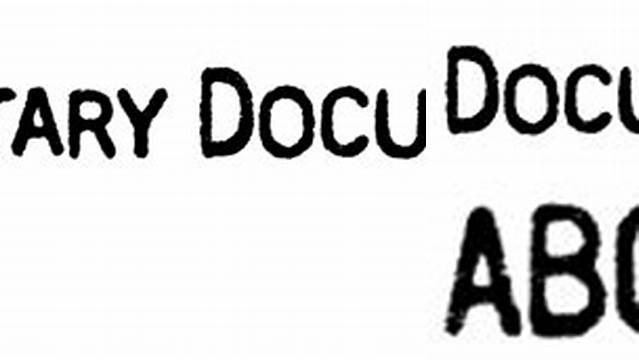
Military Document AOE Font: Free Download & Styles Guide
Hey guys! Are you looking for the perfect font to give your documents that authentic military feel? Or maybe you're just a font enthusiast with a penchant for the tactical aesthetic? Whatever your reason, finding the right military document AOE font can be a game-changer. In this comprehensive guide, we'll dive deep into the world of military-style fonts, exploring everything from what makes them unique to where you can download them for free. We'll also cover some tips and tricks for using these fonts effectively, ensuring your projects hit the mark every time. So, buckle up and get ready for a font-tastic adventure!
Let's start with the basics. What exactly is a military document AOE font? Well, the term "AOE" might be a bit of a mystery, but in the font world, it generally refers to a specific style that evokes the feeling of official military correspondence, technical manuals, and classified documents. These fonts often feature characteristics like bold, blocky lettering, a monospaced design (where each character takes up the same amount of horizontal space), and a generally utilitarian appearance. Think of the fonts you've seen in war movies, government memos, or even old-school video games – that's the kind of vibe we're talking about. The core idea behind a military-style font is readability and clarity, especially in situations where information needs to be conveyed quickly and accurately. This is why they often prioritize function over fancy aesthetics, although that doesn't mean they can't look cool too! When you're choosing a font for a military document, think about the message you want to send. Are you aiming for a sense of authority and precision? Or perhaps a more gritty, historical feel? There's a font out there for every scenario, and understanding the nuances of different styles is key to making the right choice. You'll find that many of these fonts draw inspiration from classic typewriters and stencils, giving them a timeless and authoritative feel. Common characteristics include: heavy serifs or sans-serif designs, consistent stroke widths, and a lack of decorative flourishes. These elements work together to create a sense of formality and directness, making them ideal for official-looking documents, posters, and even website designs that aim to convey a sense of strength and reliability. Beyond the technical aspects, a military document AOE font can also add a layer of visual interest to your projects. They can be used to create a sense of urgency, importance, or even nostalgia, depending on the context. For example, a vintage military font might be perfect for a historical fiction book cover, while a more modern, streamlined design could work well for a tech-themed website or app. Ultimately, the best way to understand the power of these fonts is to see them in action. Experiment with different styles, try them out in various projects, and discover how they can transform the look and feel of your work.
Okay, so we've established what a military document AOE font is, but what are the specific characteristics that define this style? Let's break it down. First and foremost, readability is paramount. Military fonts are designed to be easily legible, even in less-than-ideal conditions. This means they typically have a clear and simple design, with well-defined letterforms and ample spacing. You won't find any overly ornate or decorative elements here – the focus is on getting the message across quickly and efficiently. Another key characteristic is boldness. Military fonts often feature thick, heavy strokes that command attention. This is partly for practical reasons – bold fonts are easier to read at a distance or on low-resolution screens – but it also contributes to the overall sense of authority and power. Think about the bold lettering you often see on army vehicles, signage, and official documents – that's the kind of visual impact we're aiming for. The monospaced design we mentioned earlier is another important factor. In a monospaced font, each letter and character takes up the same amount of horizontal space. This creates a uniform, almost mechanical look that's reminiscent of typewriters and early computer printouts. While it might not be the most aesthetically pleasing choice for all applications, it's a classic feature of military fonts that adds to their authentic feel. Monospaced fonts also have a practical advantage: they make it easier to align text and create tables or charts, which is why they're often used in technical documents and coding environments. Beyond these technical aspects, there are also some more subtle characteristics that contribute to the military aesthetic. Many military fonts have a slightly distressed or weathered appearance, as if they've been through the wringer. This can add a sense of history and authenticity, making the font feel like it's been lifted straight from an old war movie. Others have a more geometric or stencil-like design, which evokes the feeling of military hardware and equipment. The letterforms might be slightly angular or incomplete, as if they were cut out of metal or painted onto a crate. These details might seem small, but they can have a big impact on the overall impression a font creates. They're what give military fonts their unique personality and make them so effective at conveying a sense of strength, authority, and even a bit of danger. When you're choosing a military font, pay attention to these subtle cues and think about how they align with the message you want to send.
Now that you know where to find these fonts, let's talk about some of the most popular military font styles you're likely to encounter. Each style has its own unique character and is suitable for different applications, so understanding the nuances can help you make the best choice for your project. First up, we have the classic stencil font. Stencil fonts are characterized by their broken letterforms, which look as if they've been cut out of a stencil. This style is directly inspired by military equipment and signage, where stencils were often used to apply lettering to vehicles, crates, and other surfaces. Stencil fonts have a rugged, utilitarian look that's perfect for conveying a sense of strength and durability. They're often used in posters, logos, and branding materials for businesses that want to project a tough or industrial image. Next, we have the monospaced typewriter font. As we mentioned earlier, monospaced fonts have a uniform character width, creating a consistent, almost mechanical look. Typewriter fonts are particularly evocative of military documents, as typewriters were a common tool for official correspondence and paperwork in the armed forces. These fonts have a vintage, slightly retro feel that can add a touch of nostalgia to your designs. They're also incredibly legible, making them a good choice for documents, reports, and other text-heavy materials. Then there are the bold sans-serif fonts. Sans-serif fonts, which lack the small decorative strokes (serifs) found on some other font styles, are known for their clean, modern look. Bold sans-serif fonts are particularly effective at commanding attention and conveying a sense of authority. These fonts are often used in military signage, headings, and titles, where readability is paramount. They can also work well in website designs and other digital applications where a strong, clear message is essential. Another popular style is the slab-serif font. Slab-serif fonts have thick, blocky serifs that give them a bold and assertive appearance. These fonts have a slightly more vintage feel than sans-serif fonts, but they're still incredibly legible and impactful. Slab-serif fonts are often used in logos, posters, and other display applications where you want to make a statement. They can also work well for headlines and subheadings in longer documents. Finally, we have the more modern and futuristic military fonts. These fonts often incorporate geometric shapes, sharp angles, and other design elements that evoke the feeling of advanced technology and weaponry. They're a good choice for projects that want to convey a sense of innovation or cutting-edge design. These fonts might be less traditional than some of the other styles we've discussed, but they can still be incredibly effective at creating a military-inspired look. When choosing a military font style, it's important to consider the overall tone and message of your project. Think about the context in which the font will be used and the audience you're trying to reach. By understanding the characteristics of different military font styles, you can make the best choice for your needs and create a design that truly stands out.
Okay, you've downloaded your free military document AOE font, now what? Using these fonts effectively is about more than just slapping them on any old project. You need to consider the context, the message you're trying to convey, and the overall aesthetic you're aiming for. Here are some tips to help you make the most of your military fonts. First and foremost, consider the readability. While military fonts are generally designed to be legible, some styles are easier to read than others. If you're using a font for a large block of text, make sure it's one that won't strain the reader's eyes. Avoid overly stylized or distressed fonts for long passages of text, and opt for something clean and straightforward instead. For headlines and titles, you have a bit more leeway. This is where you can really let your military font shine and make a bold statement. Choose a font that's eye-catching and attention-grabbing, but still legible. Remember, the goal is to draw the reader in and make them want to learn more. Another important tip is to use military fonts sparingly. Just because you have a cool military font doesn't mean you should use it everywhere. Overusing these fonts can make your design look cluttered and overwhelming. Instead, try using them in moderation, as accent fonts, or for specific elements that you want to highlight. Think about the overall tone of your project. Military fonts can convey a range of emotions, from strength and authority to nostalgia and even a bit of danger. Choose a font that aligns with the message you're trying to send. For example, if you're creating a poster for a military history event, a vintage typewriter font might be a great choice. But if you're designing a logo for a tech startup, a more modern and futuristic military font might be more appropriate. Consider the color palette. The colors you use in your design can have a big impact on the overall look and feel. Military fonts often work well with muted, earthy colors like greens, browns, and grays. These colors evoke the feeling of military uniforms and equipment. You can also try using bolder colors like red or black to create a sense of urgency or danger. Don't be afraid to experiment with different color combinations to see what works best for your project. Pay attention to the spacing. Proper spacing is crucial for readability and visual appeal. Make sure your letters, words, and lines are spaced appropriately. Adjust the kerning (the space between individual letters) and the leading (the space between lines of text) to create a comfortable reading experience. Too much or too little spacing can make your design look amateurish. Finally, don't be afraid to mix and match fonts. While it's generally a good idea to limit yourself to two or three fonts per project, you can create interesting and dynamic designs by combining different styles. Try pairing a bold military font with a more subtle sans-serif font for a balanced and visually appealing look. By following these tips, you can use military fonts effectively and create designs that are both visually striking and meaningful.
So, there you have it! A deep dive into the world of military document AOE fonts. We've covered everything from what they are and their key characteristics to where you can find them for free and how to use them effectively. Whether you're a designer, a writer, or just someone who appreciates a good font, we hope this guide has been helpful. Remember, the right font can make all the difference in the world, and a well-chosen military font can add a touch of authority, history, or just plain coolness to your projects. Now go forth, download some free fonts, and start creating something amazing! And hey, if you create something awesome, be sure to share it with us. We love seeing what you guys come up with!